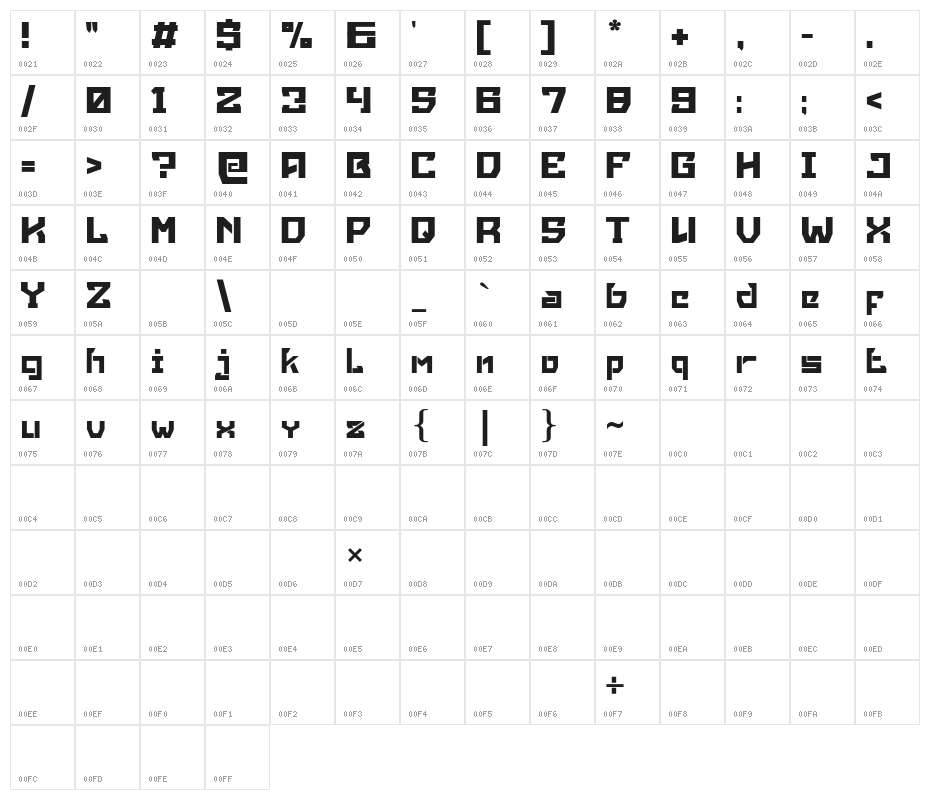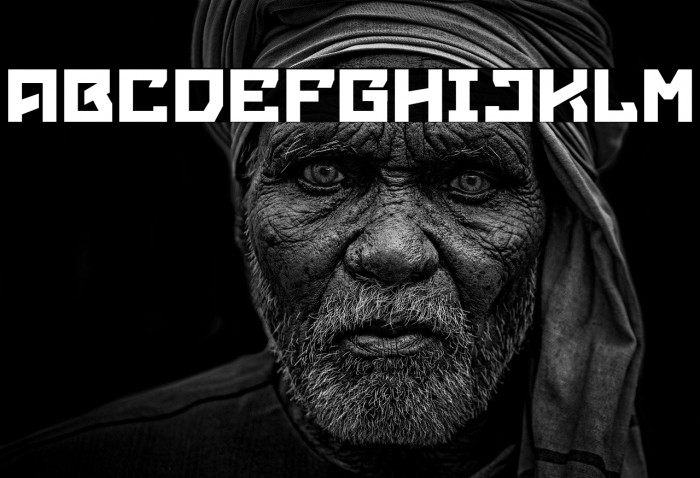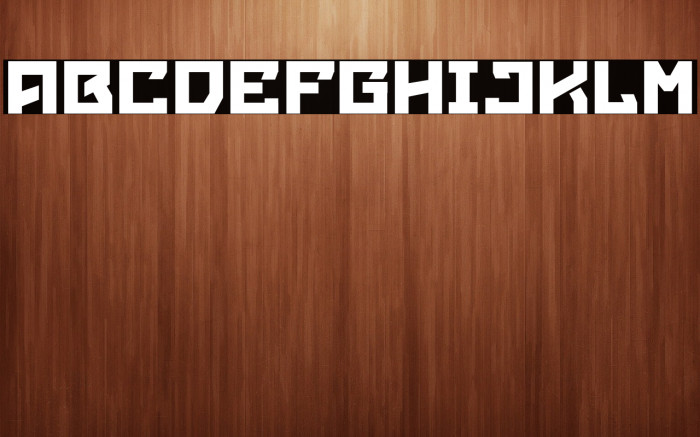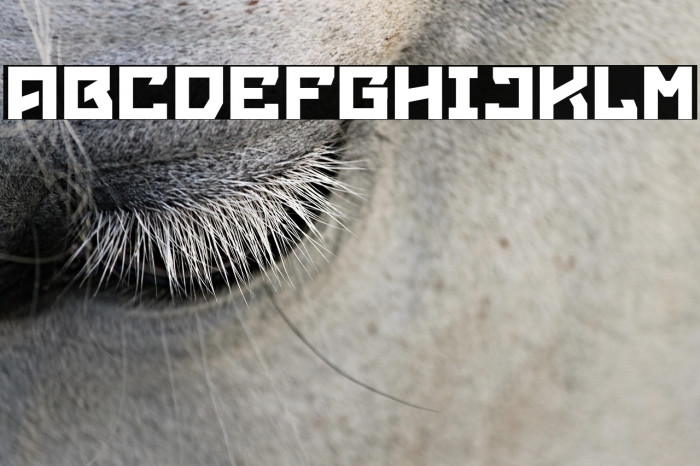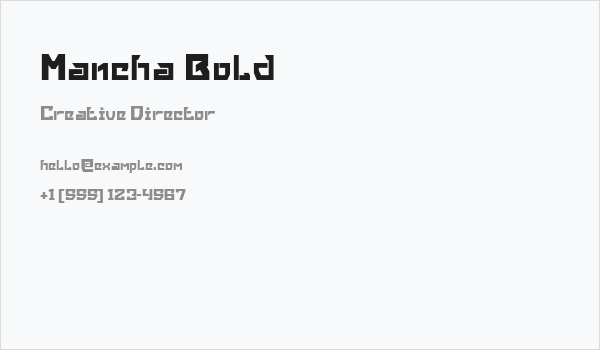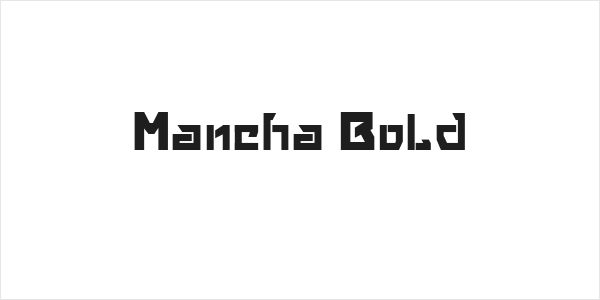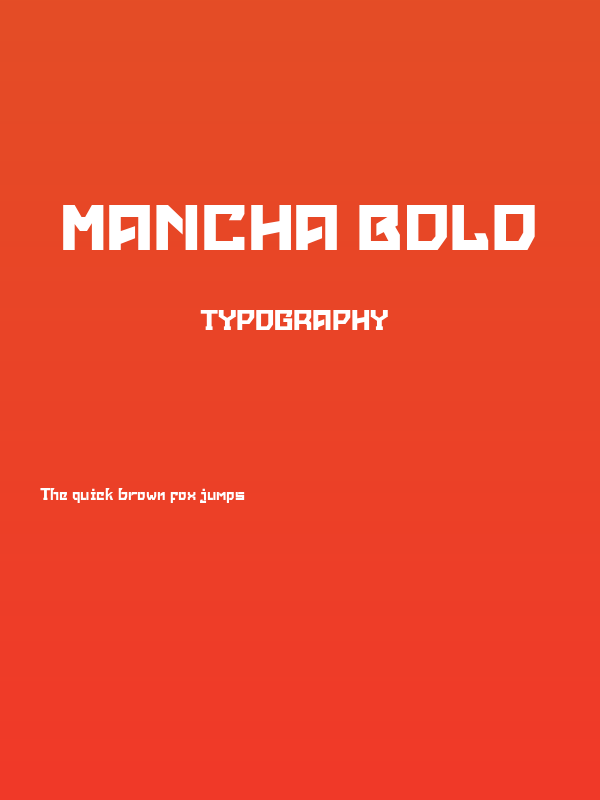
Mancha Bold Font
Mancha Bold Description
This font features a bold and geometric style with sharp, angular edges and a distinct block-like appearance. The uppercase and lowercase letters maintain a consistent structure, emphasizing a modern and industrial aesthetic. The numbers and special characters follow the same design principles, ensuring uniformity across all glyphs. The font's strong presence and unique character shapes make it stand out, suitable for projects that require a bold statement.
| Proposed Projects | Ideal for branding, posters, headlines, and any design work that requires a strong, impactful typeface. |